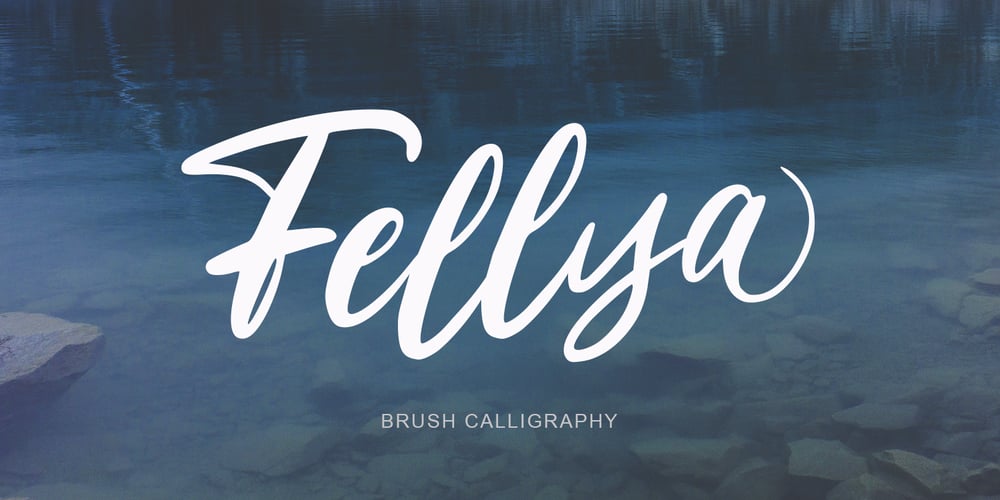
Fellya
Fellya font
Fellya Font Family was designed by Yur Lis and published by Stripes Studio. Fellya contains 1 styles and family package options. Fellya a new very attractive brushed font with a natural, detailed and perfect texture.Fellya is perfect for branding projects, logos, product packaging, posters, invitations, greeting cards, news, blogs, everything including personal charm and more.